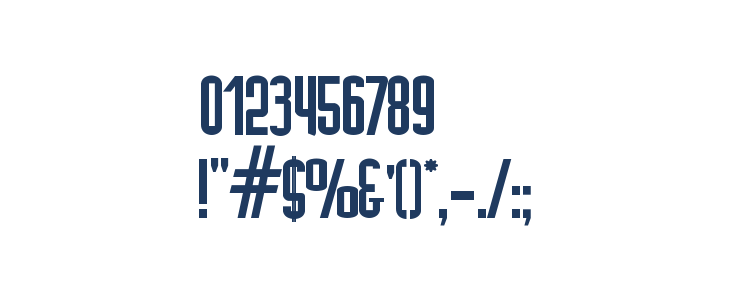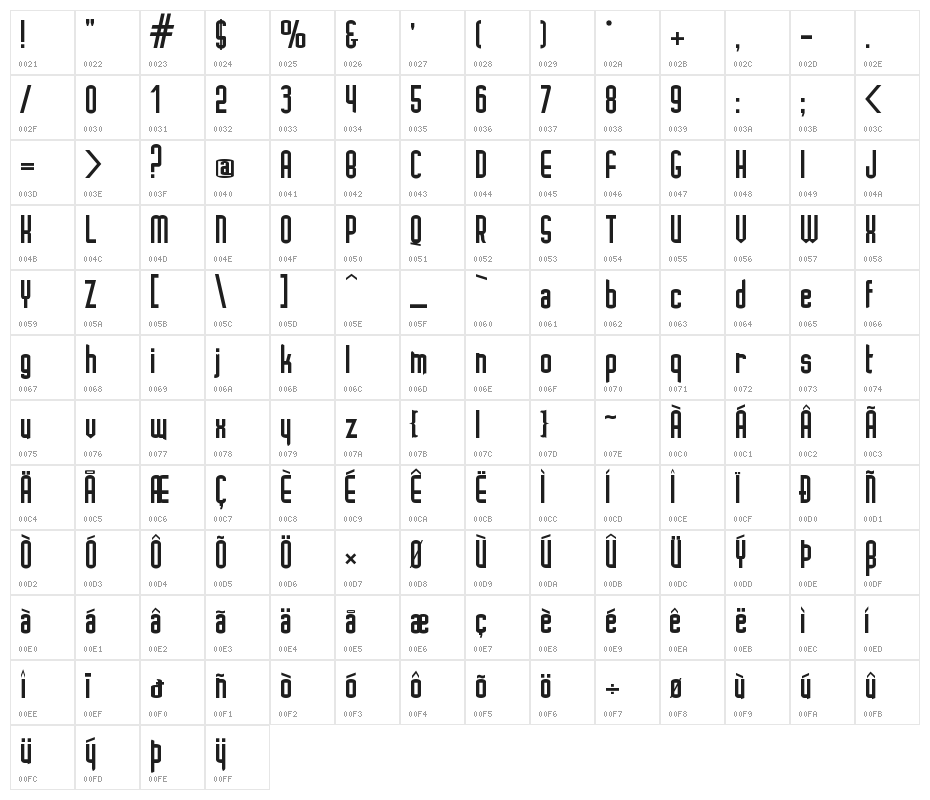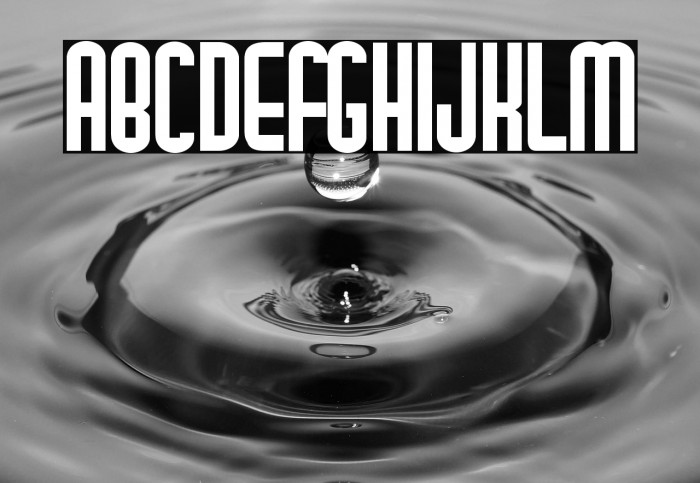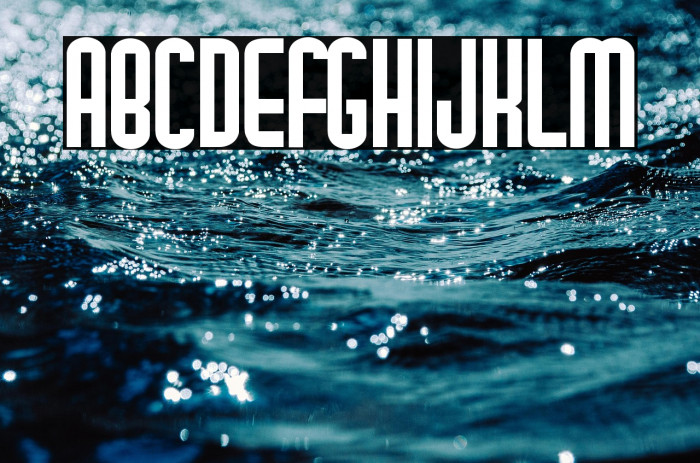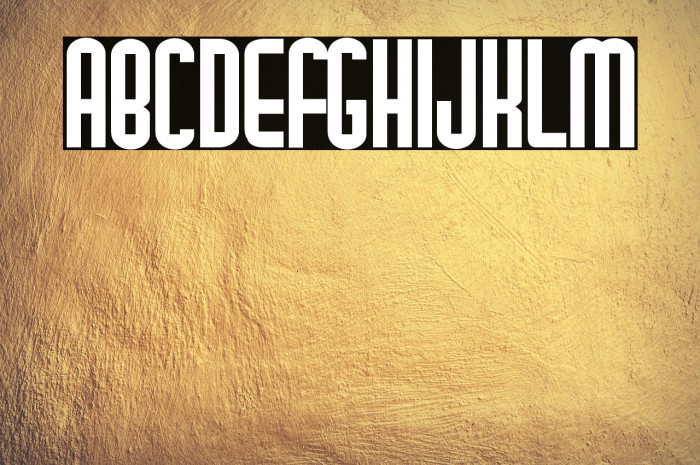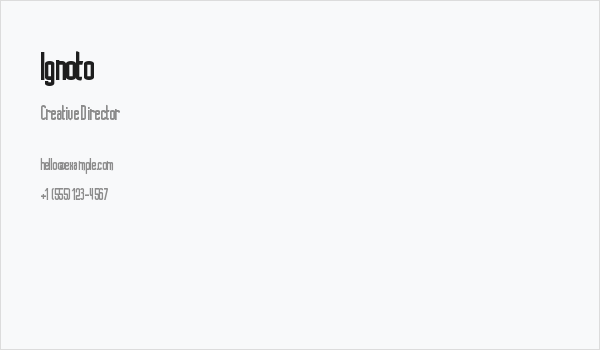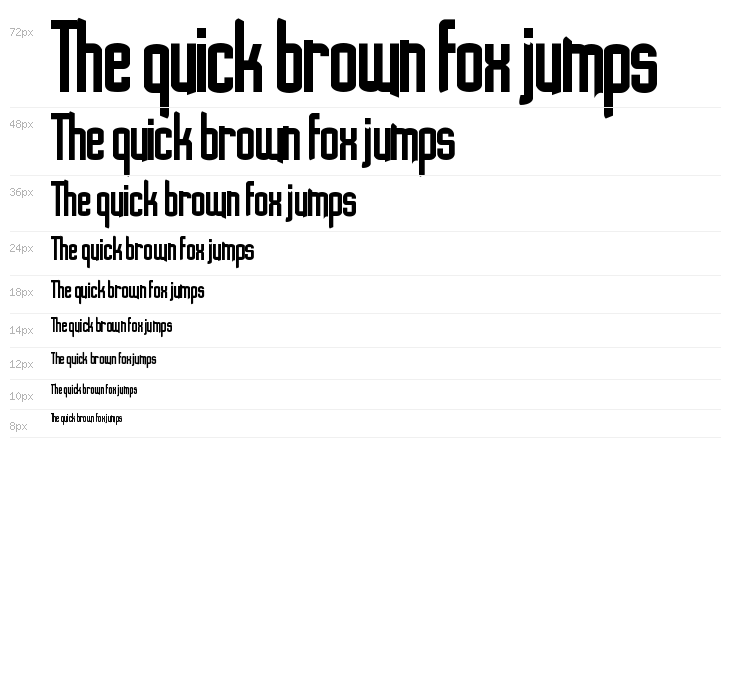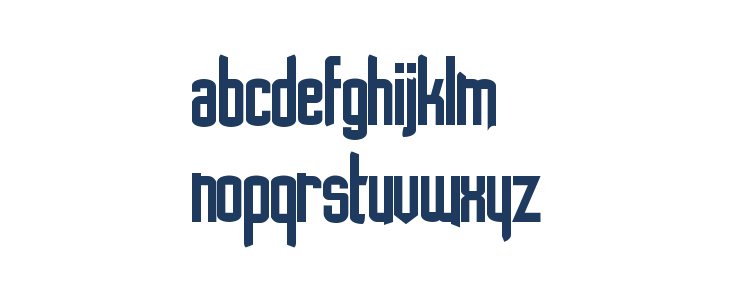
Ignoto Font
Ignoto Description
This font features a bold and condensed style with a modern flair. The uppercase letters are tall and narrow, giving a strong and impactful appearance. The lowercase letters maintain the same condensed structure, ensuring consistency throughout. The numbers are equally bold, making them stand out clearly. Special characters are designed with the same boldness, ensuring they are easily recognizable. The overall design is sleek and contemporary, suitable for making a statement in any design project.
| Proposed Projects | Ideal for headlines, posters, branding, and any project requiring a bold statement. |